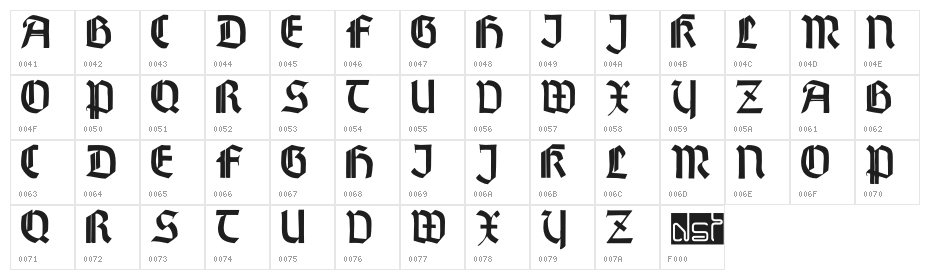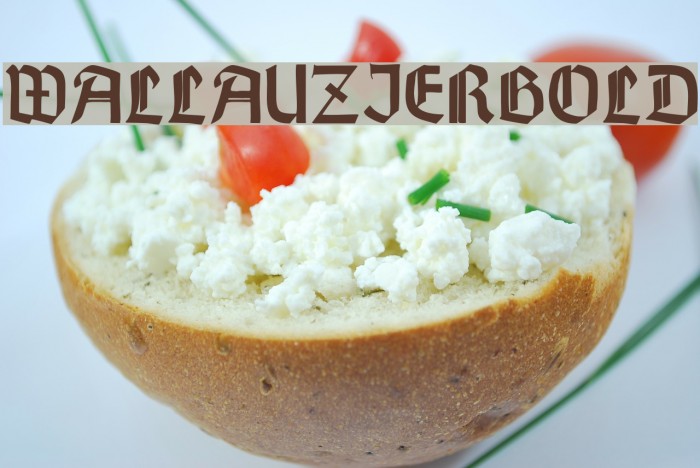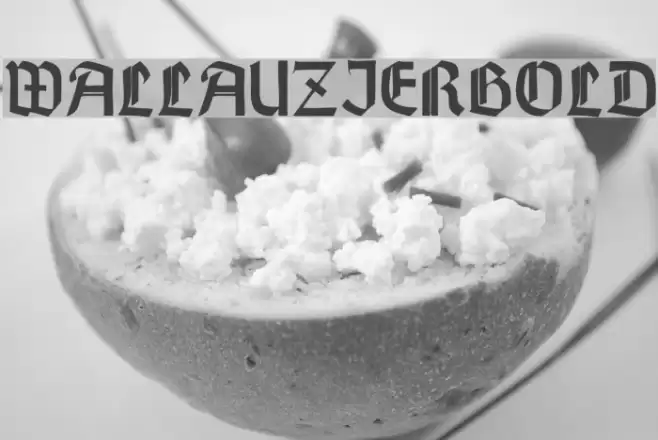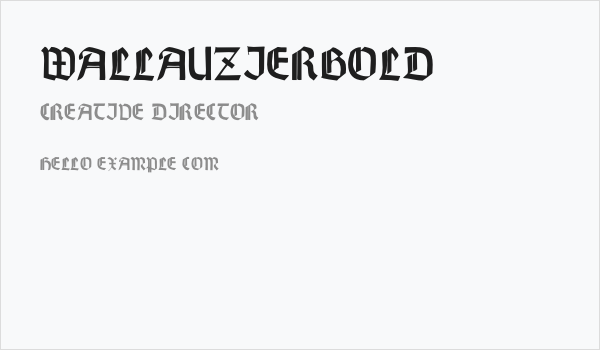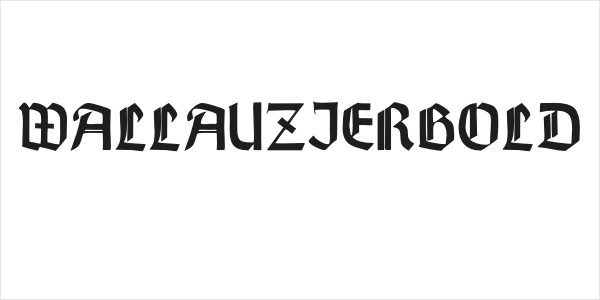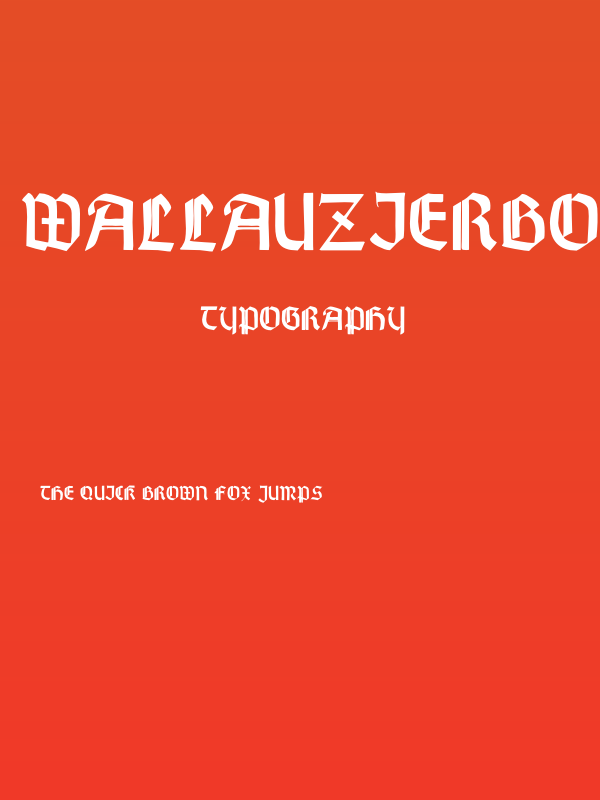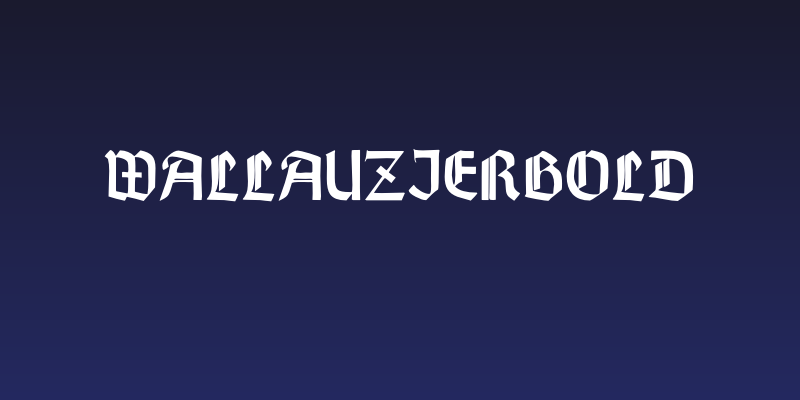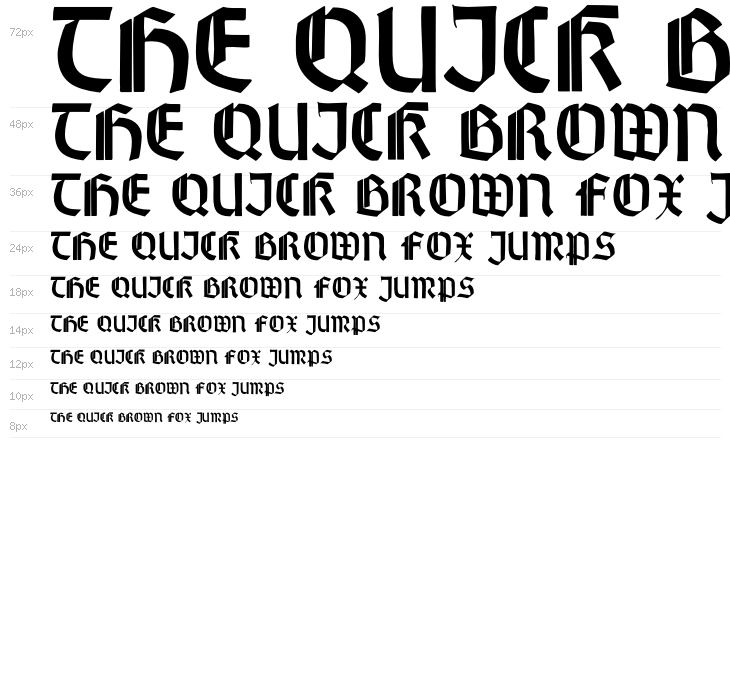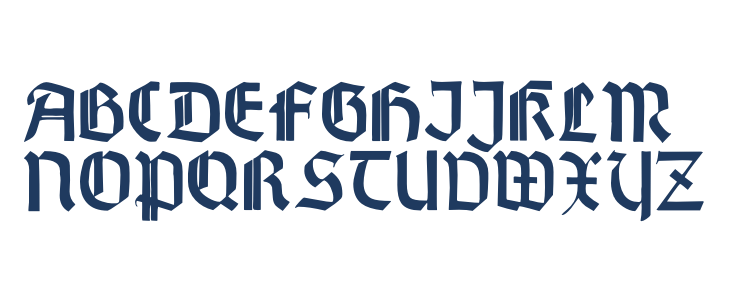
WallauZierBold Font
WallauZierBold Description
This font exudes a classic and historical aura, reminiscent of traditional blackletter styles. The characters are bold and angular, with intricate detailing that gives them a distinct, ornate appearance. The uppercase letters are particularly striking, with sharp serifs and dramatic flourishes that enhance their visual impact. The lowercase letters maintain the same level of detail, ensuring consistency throughout the typeface. The numbers and special characters are equally well-crafted, making this font versatile for various applications. Its overall design is both decorative and legible, suitable for projects that require a touch of elegance and tradition.
| Proposed Projects | Ideal for historical documents, certificates, wedding invitations, and branding that requires a classic touch. |